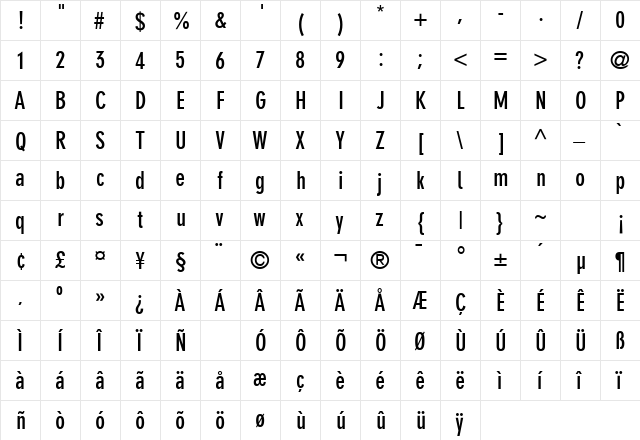
Parallax Grotesk SSi Bold Condensed Font Preview
Design Context for Parallax Grotesk SSi Typeface
Parallax Grotesk SSi has the quiet confidence of well-executed sans-serif typography: versatile, unobtrusive, and dependable at any size. Its bold stroke weight gives it real presence on the page. The condensed width makes it efficient for tight spaces without sacrificing legibility.
Well-suited to navigation labels, product packaging, and anywhere legibility at scale is essential.
Font Pairing: Use Parallax Grotesk SSi for headlines alongside a lighter-weight sans or serif for body copy to establish clear visual hierarchy.
Pro Tip: Use Parallax Grotesk SSi tightly set in headlines and banners — its condensed proportions make it ideal for maximum impact in minimum horizontal space.